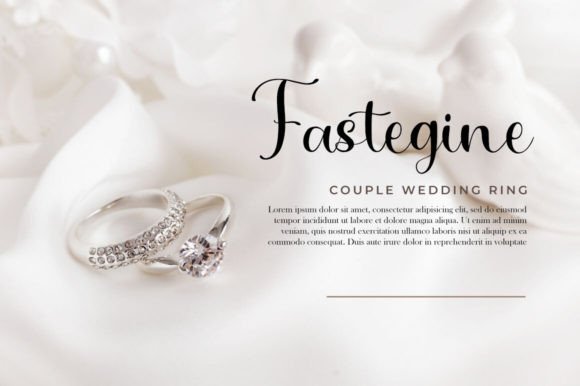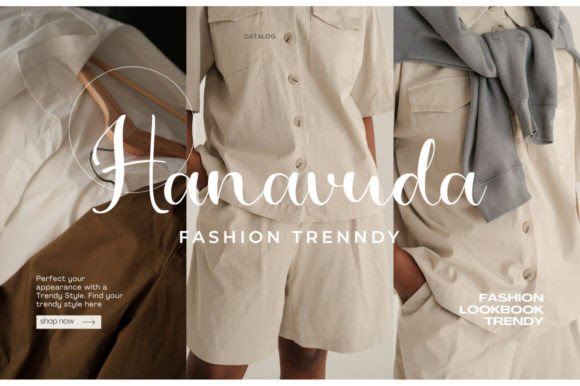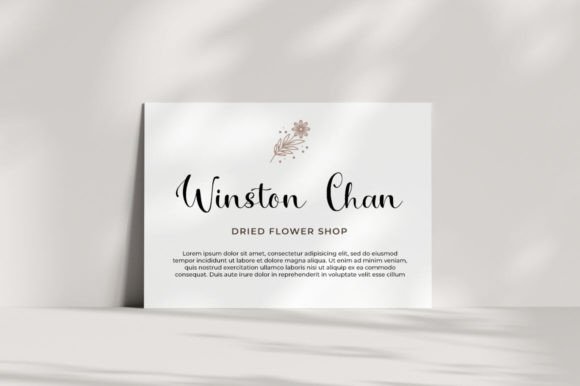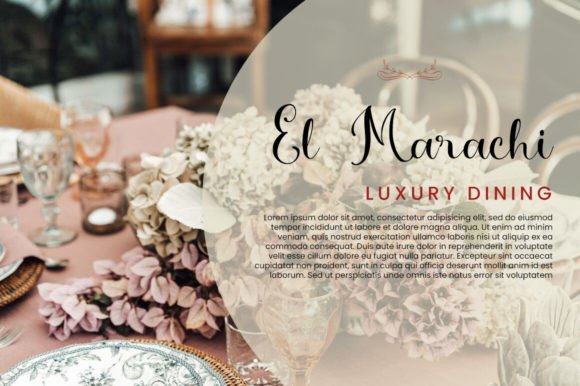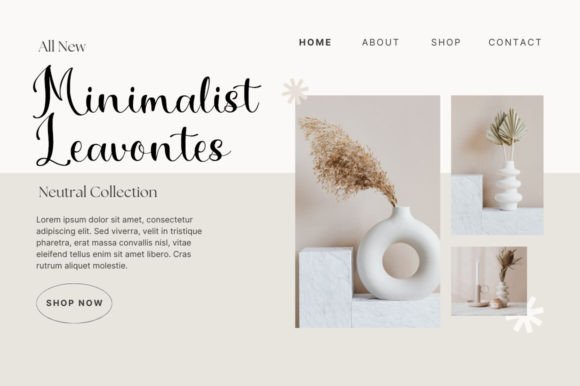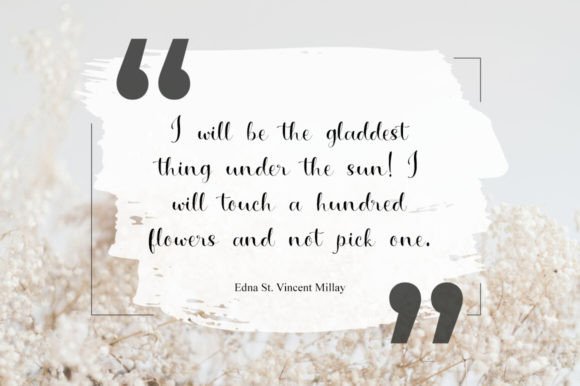
The Art of Timeless Typography
Have you ever found yourself rummaging through your grandmother’s attic, unearthing old family letters and photographs with handwriting that seems to transport you to another era? The way the ink flows, the curves of the letters, the character in every stroke – it’s a connection to the past that’s hard to replicate with modern technology. But what if you could capture that same essence in your designs, making them feel timeless and authentic?
Enter the Everlasted Font, a beautiful script font designed to evoke the feeling of handwritten letters. With its elegant strokes and flowing lines, it’s perfect for a wide range of projects, from logos and branding to invitations and wedding designs. For designers, the Everlasted Font is a valuable tool for adding a touch of personality and warmth to their work, making it stand out in a crowded digital landscape.
Everlasted Font Key Features
- Unique Characteristics: The Everlasted Font features a distinctive, elegant design with intricate details, making it ideal for use in high-end branding, luxury packaging, and sophisticated publications.
Everlasted Font Review
Everlasted Font is a beautiful and elegant script font that can add a touch of sophistication to any design project. ✨ Its flowing lines and cursive feel make it perfect for creating invitations, quotes, and other text-based designs that require a sense of luxury and refinement.
One of the standout features of Everlasted Font is its high-quality rendering, even at large font sizes. ✨ The font’s edges are crisp and clean, making it easy to read and view on various devices. Additionally, the font’s compatibility with most operating systems and devices is a major plus.
- ⚠️ Limited character set: Everlasted Font may not have the same level of character support as other fonts, which can limit its use in certain contexts.
- ⚠️ Not suitable for small text: While the font looks great at larger sizes, it can become difficult to read at smaller font sizes due to its flowing lines and cursive feel.
Overall, Everlasted Font is a beautiful and high-quality font that can add a touch of elegance to any design project. While it may have some limitations, its unique character and high-quality rendering make it a great choice for designers looking to create sophisticated and refined designs.
Tips for Getting the Most Out of Everlasted Font
For optimal results, use the Everlasted Font in combination with bold or italic styles to create visual interest. You can also experiment with different font sizes and colors to create a unique design.
The Everlasted Font is ideal for use in headings, titles, and other text elements that require a touch of elegance and sophistication. It’s perfect for designs such as business cards, invitations, and marketing materials.